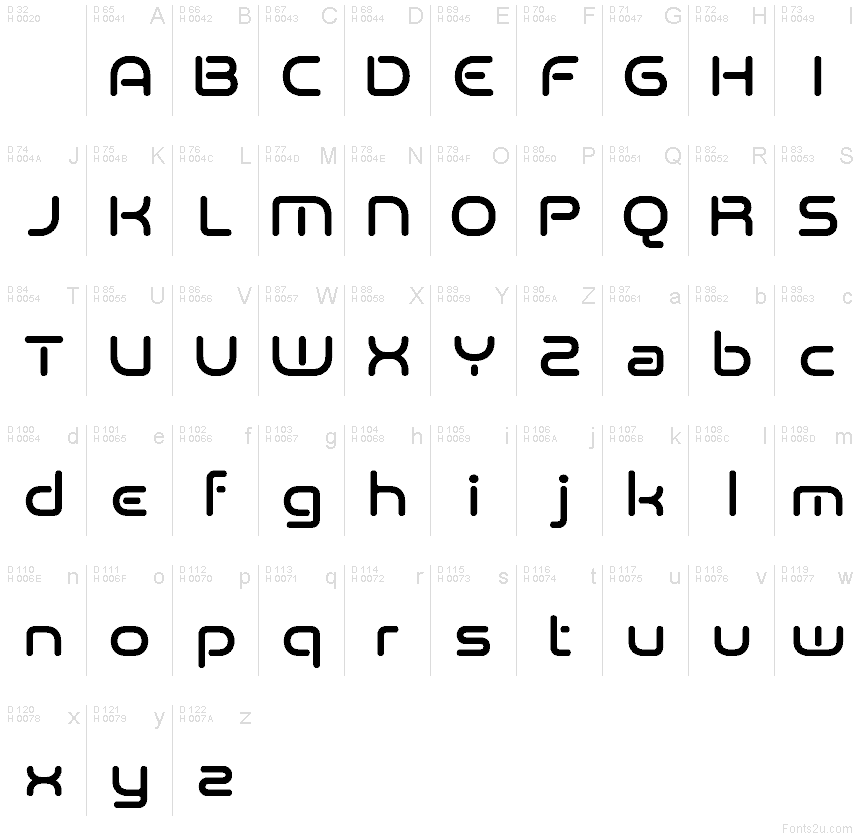
CS Cypher Regular Demo
CS Cypher font by Craft Supply Co. is a sleek, modern display typeface that embodies futuristic appeal with its geometric elements and digital influence. This expanded font offers a bold, commanding presence, making it perfect for impactful designs.
Elevate your tech-oriented projects like posters, websites, mobile apps, or video games with this free futuristic display font. It's also ideal for branding materials, packaging designs, advertising campaigns in fashion and luxury sectors where innovation meets style.